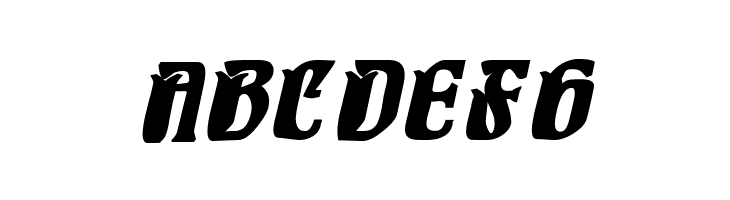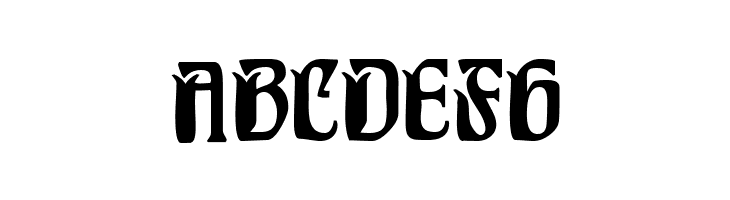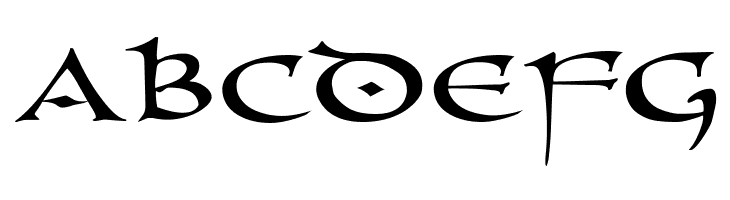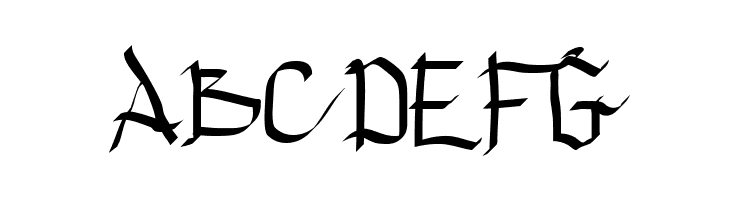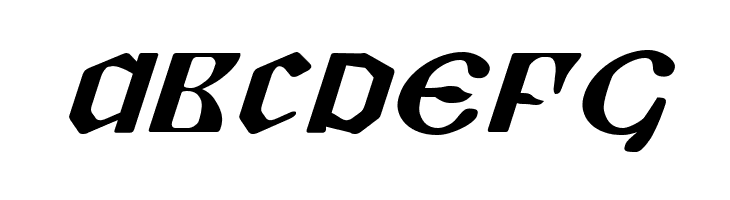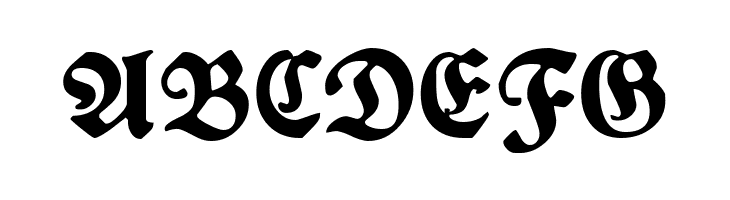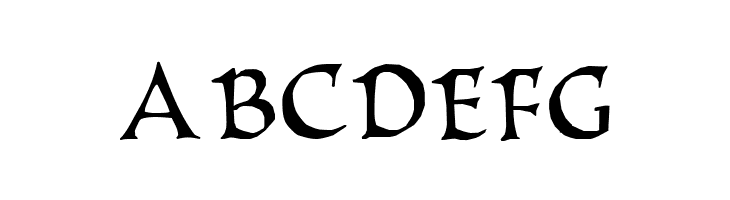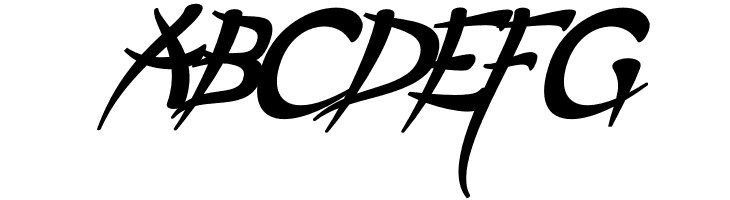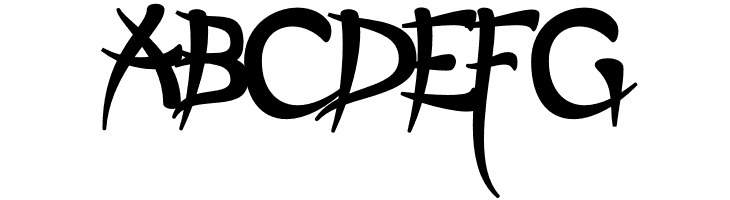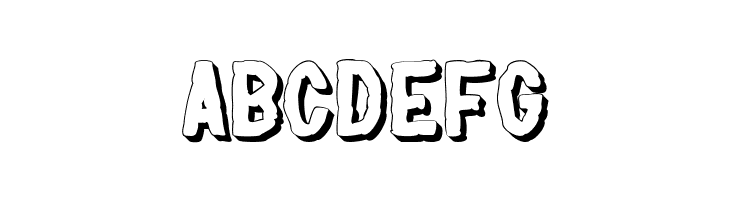
Gothic Fonts
DeutscheDruckschrift Font
A traditional blackletter font with intricate, ornate designs and bold, angular lines.
DeutschGotisch Font
A bold Blackletter font with intricate, angular letterforms and a historical feel.
Deutschische Font
A traditional Blackletter font with ornate, angular designs and historical elegance.
Devans Font
A bold, ornate Blackletter font with intricate, angular letterforms.
Devil Candle Alt PERSONAL USE Regular Font
A bold, gothic-style font with sharp serifs and angular forms.
Devil Summoner Expanded Font
A bold, gothic-inspired font with sharp, angular edges and a dramatic presence.
Devil Summoner Regular Font
A bold, gothic-inspired font with sharp, angular edges.
Devil's Snare Font
A bold, gothic-inspired font with thorn-like extensions and intricate details.
Devil's Tongue 3D Italic Font
A bold, decorative 3D italic font with intricate gothic-inspired details.
Diablo Heavy Font
A bold, gothic-inspired font with sharp, angular serifs and a dramatic presence.
DiabloRegular Font
An ornate, gothic-inspired font with intricate flourishes and sharp serifs.
Diabolica Font
A bold, gothic-inspired font with sharp serifs and a dramatic style.
Diabolique Font
An ornate, gothic-style font with intricate flourishes and high contrast.
DIAMOND DUST Font
A bold, angular font with a Gothic-inspired, geometric style.
Diamond Gothic Font
An ornate Gothic-style font with intricate serifs and decorative elements.
Didact Gothic Font
A clean, modern sans-serif font with uniform stroke width and geometric structure.
Didact Gothic Regular Font
A clean, modern sans-serif font with geometric shapes and uniform strokes.
DIGITAL GOTHIC Font
A bold, geometric font with a digital gothic style.
Digital Gothic Bold Italic Font